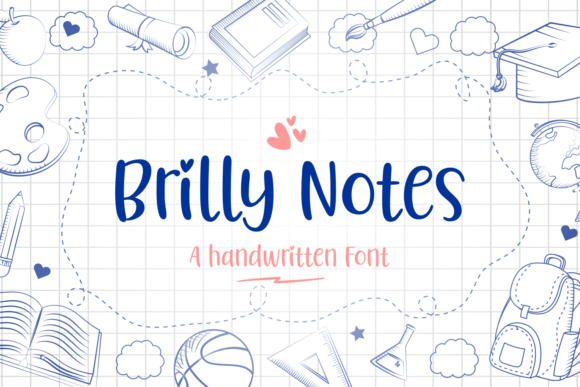
Introducing Brilly Notes Font: The Sweet and Friendly Handwritten Font for Your Creative Projects
Are you a designer, crafter, or DIY enthusiast looking for a unique and versatile font to elevate your creative projects? Look no further than Brilly Notes, a sweet and friendly handwritten font that’s perfect for a wide range of designs. With its natural and unique style, Brilly Notes is incredibly fitting for various projects, and the only limit is your imagination!
The Charm of Brilly Notes Font
Brilly Notes Font is a beautifully crafted handwritten font that’s designed to add a touch of warmth and personality to your designs. Its sweet and friendly style makes it perfect for projects that require a personal and approachable feel, such as:
- Stationery and greeting cards
- DIY crafts and scrapbooking
- Blogging and social media graphics
- Wedding and event planning
Whether you’re creating digital or print materials, Brilly Notes Font is sure to bring a smile to your audience’s faces. Its unique and natural style sets it apart from more traditional fonts, making it an excellent choice for designers and crafters who want to add a personal touch to their work.
What Makes Brilly Notes Font So Versatile?
One of the best things about Brilly Notes Font is its incredible versatility. Its sweet and friendly style makes it suitable for a wide range of projects, from fun and playful to elegant and sophisticated. Here are just a few reasons why Brilly Notes Font is a great addition to your font collection:
- Easy to read: Brilly Notes Font is clear and easy to read, making it perfect for body text, headings, and titles.
- Highly legible: The font’s unique style is highly legible, even at small sizes, making it ideal for use in a variety of applications.
- Flexible: Brilly Notes Font can be used for both digital and print projects, and can be easily paired with other fonts to create stunning combinations.
How to Use Brilly Notes Font in Your Designs
- Use it for headings and titles: Brilly Notes Font is perfect for headings and titles, adding a touch of elegance and sophistication to your designs.
- Sweet and friendly handwritten font
- Natural and unique style
- Incredibly versatile and flexible
- Easy to read and highly legible
- Perfect for a wide range of designs, from fun and playful to elegant and sophisticated